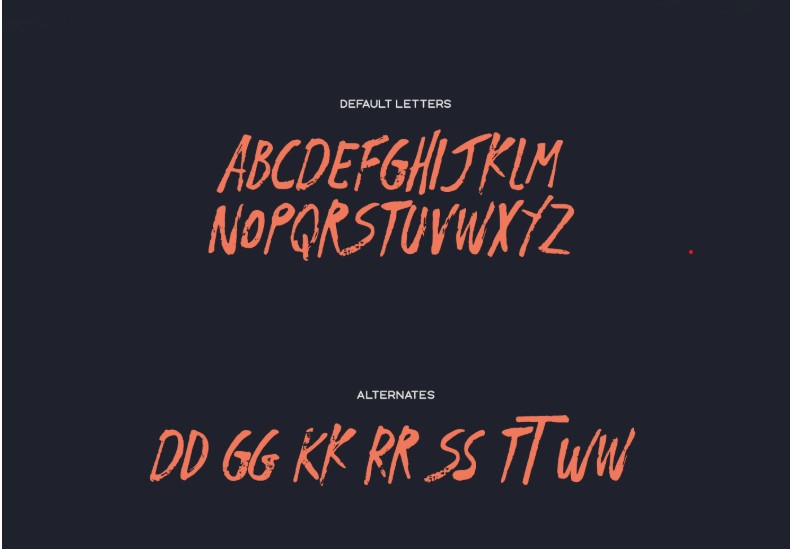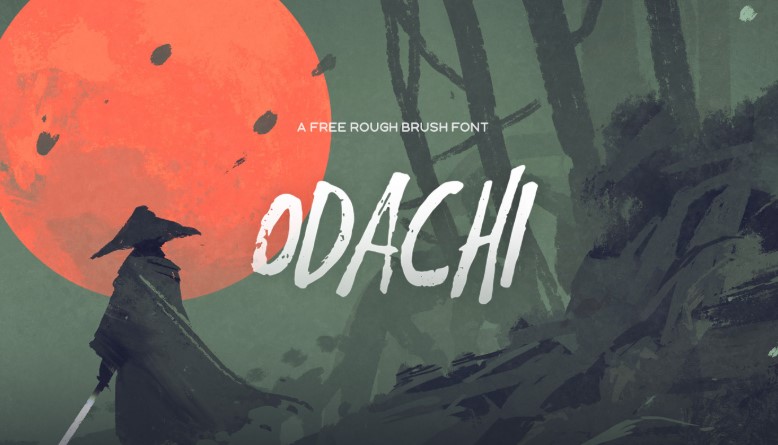
Odachi Brush Font
Odachi Brush Font is one of the most used typefaces in Microsoft Word. This is similar to the potra font. This makes the content elegant. The content material writer creates this font has taken the concept from the luckiest man font in addition, that new typeface has positioned at the font.
Everyday with many expert designers, it’s far giving a top-notch like-minded search for particular operations. In this behavior, it’s far going to expose one of the most unique typefaces. Odachi Brush Font Free This splendid top-notch font has are available in a common range at the element of a number of the characters. Having the paper format like lipstick font it has to characteristic the uppercase, punctuation marks.